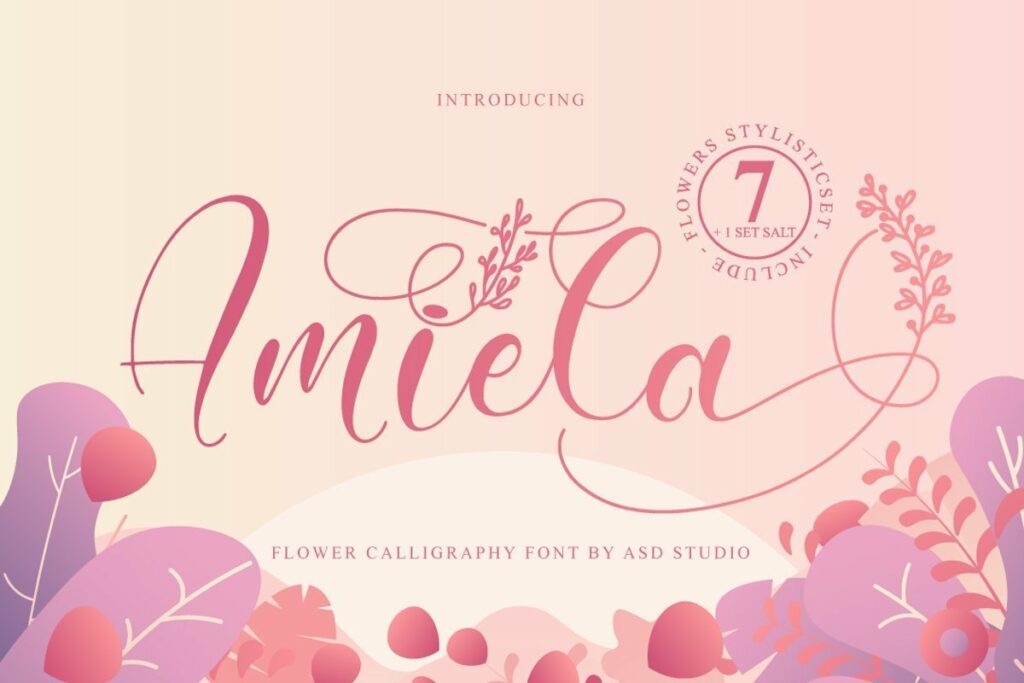
Amiela Flower Calligraphy Script Font
Amiela Flower Calligraphy is a script font created with love, sincerity, and patience. Can be used to make invitation writing, lettering, and all graphic design needs. This font is equipped with 7 stylistic sets and 1 stylistic alternates that will make your design look more attractive and beautiful.